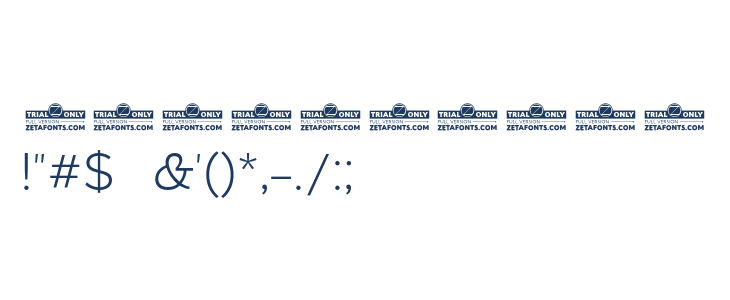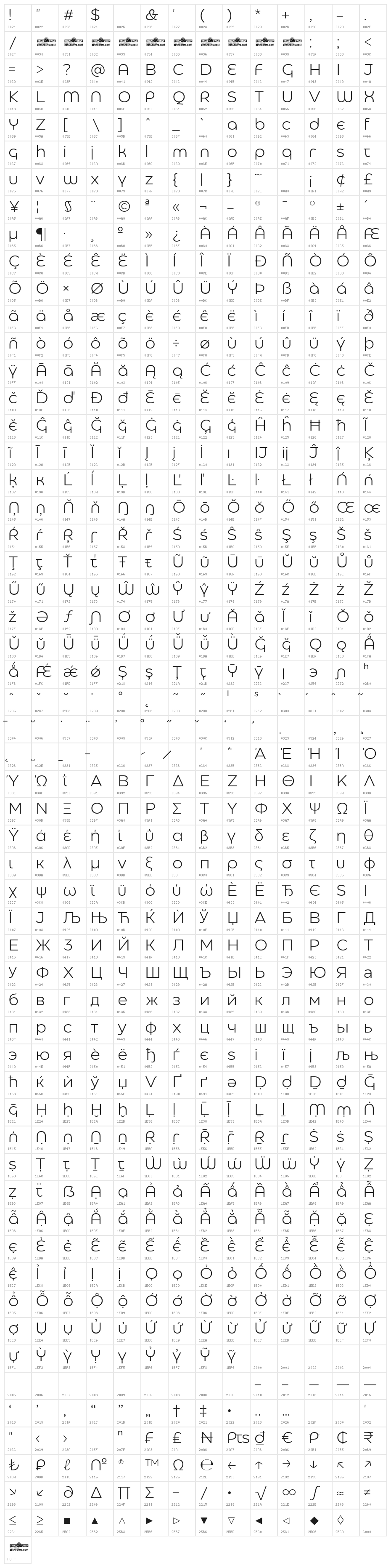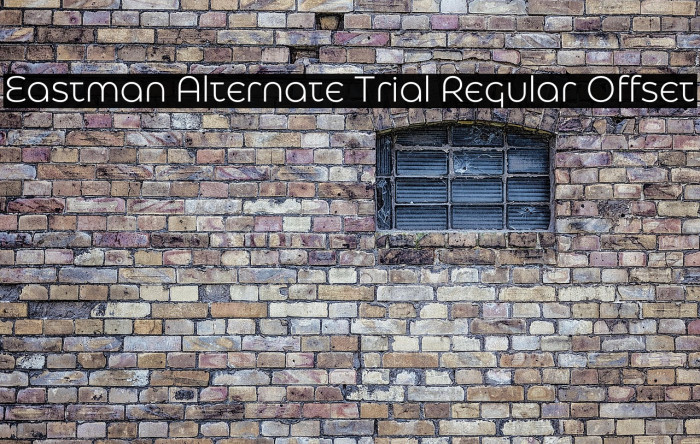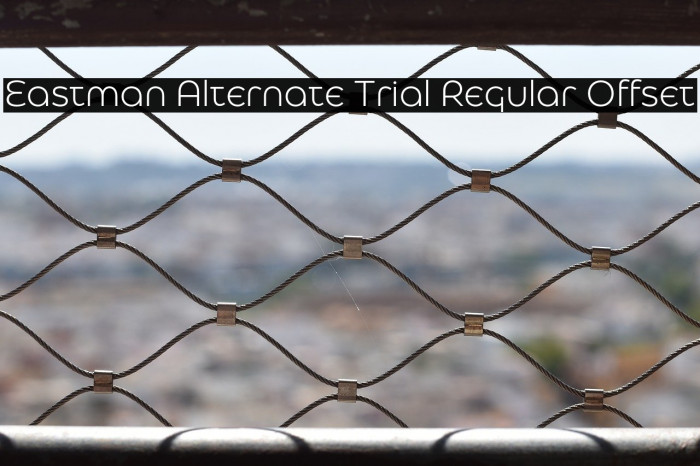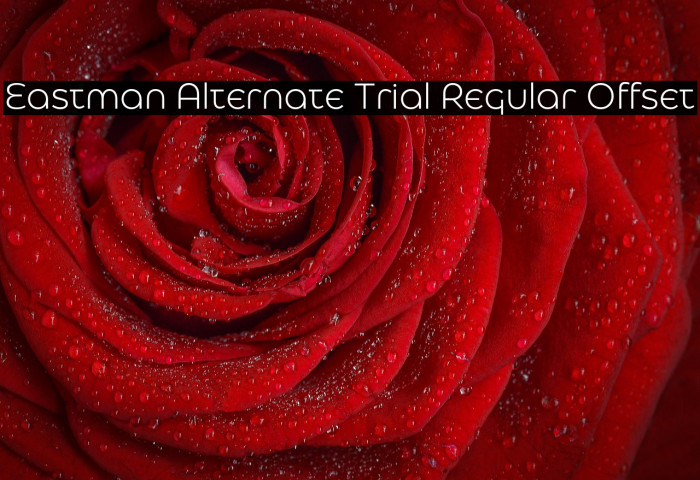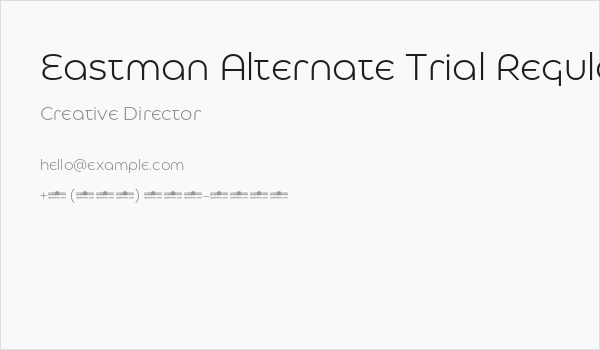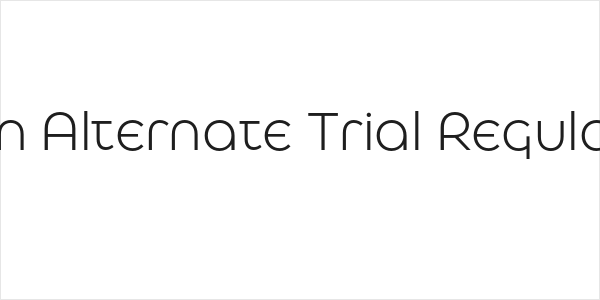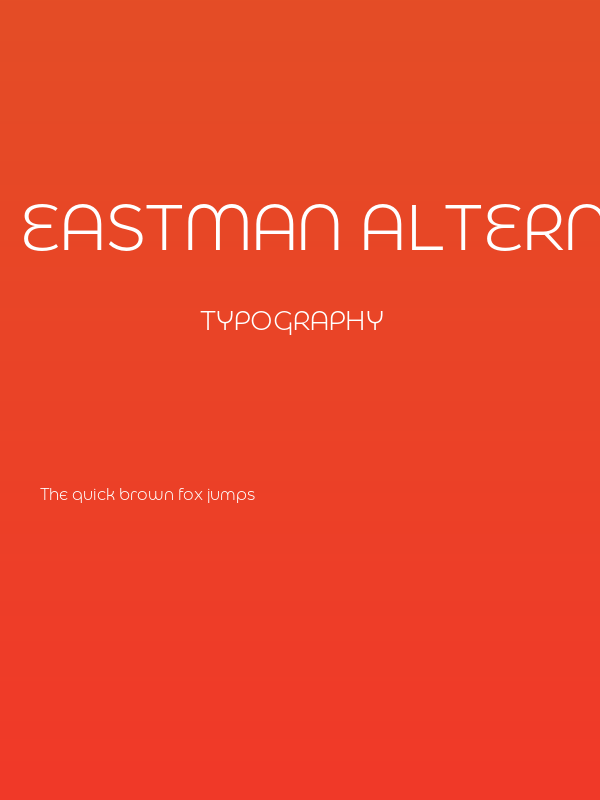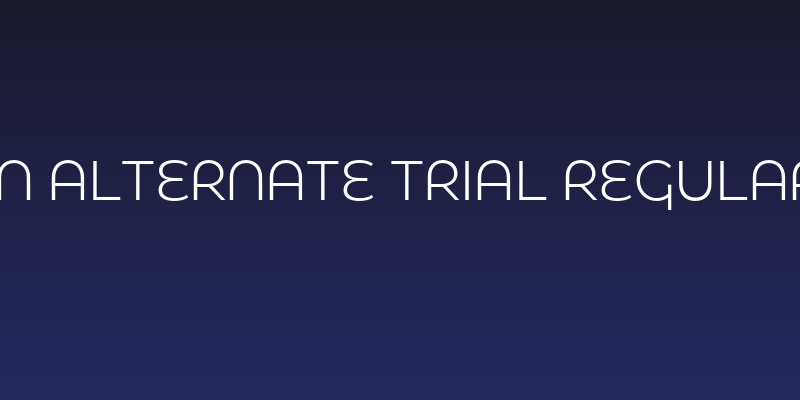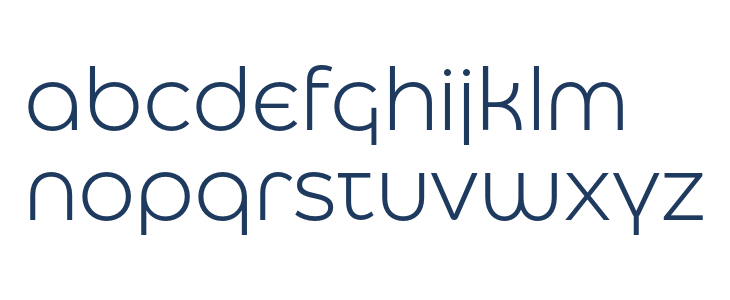
Eastman Alternate Trial Regular Offset Font
Eastman Alternate Trial Regular Offset Description
This font features a clean and modern design with a geometric structure. The characters are well-balanced, with smooth curves and straight lines that create a harmonious appearance. The uppercase letters are slightly taller than the lowercase, providing a clear distinction between the two. The font maintains a consistent stroke width throughout, giving it a uniform look. The special characters are designed to match the overall style, ensuring visual coherence. This font is versatile, suitable for both digital and print media, and can be used in various design projects.